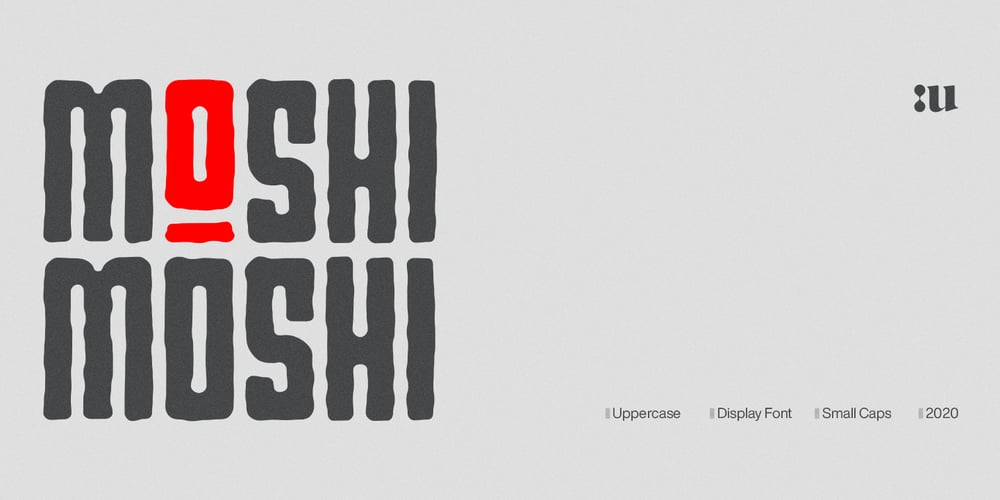
Moshi Moshi Font Family was designed by Nicola Manzari and published by Unio Creative Solutions. Moshi Moshi contains 1 styles and family package options. Introducing “Moshi Moshi” – Inspired by Japanese street posters, this all-caps block typeface delivers modernness with some brushy imperfections. Taking inspiration from Japanese hand-painted street art, “Moshi Moshi” has rough letterforms, but at the same time communicates a modern and minimalistic style. “Moshi Moshi” includes full multilingual capabilities and a coverage of several languages based on the Latin alphabet. Ideal to add an eye-catching appeal to your logo designs, branding, quotes, product packaging, merchandise and social media posts. Specifications: – Files included: Moshi Moshi – Formats: .otf – Multi-language support (Central, Eastern, Western European languages) – OpenType features (Small-Caps, Alternate & Ligature) Thanks for viewing/downloading, Unio.